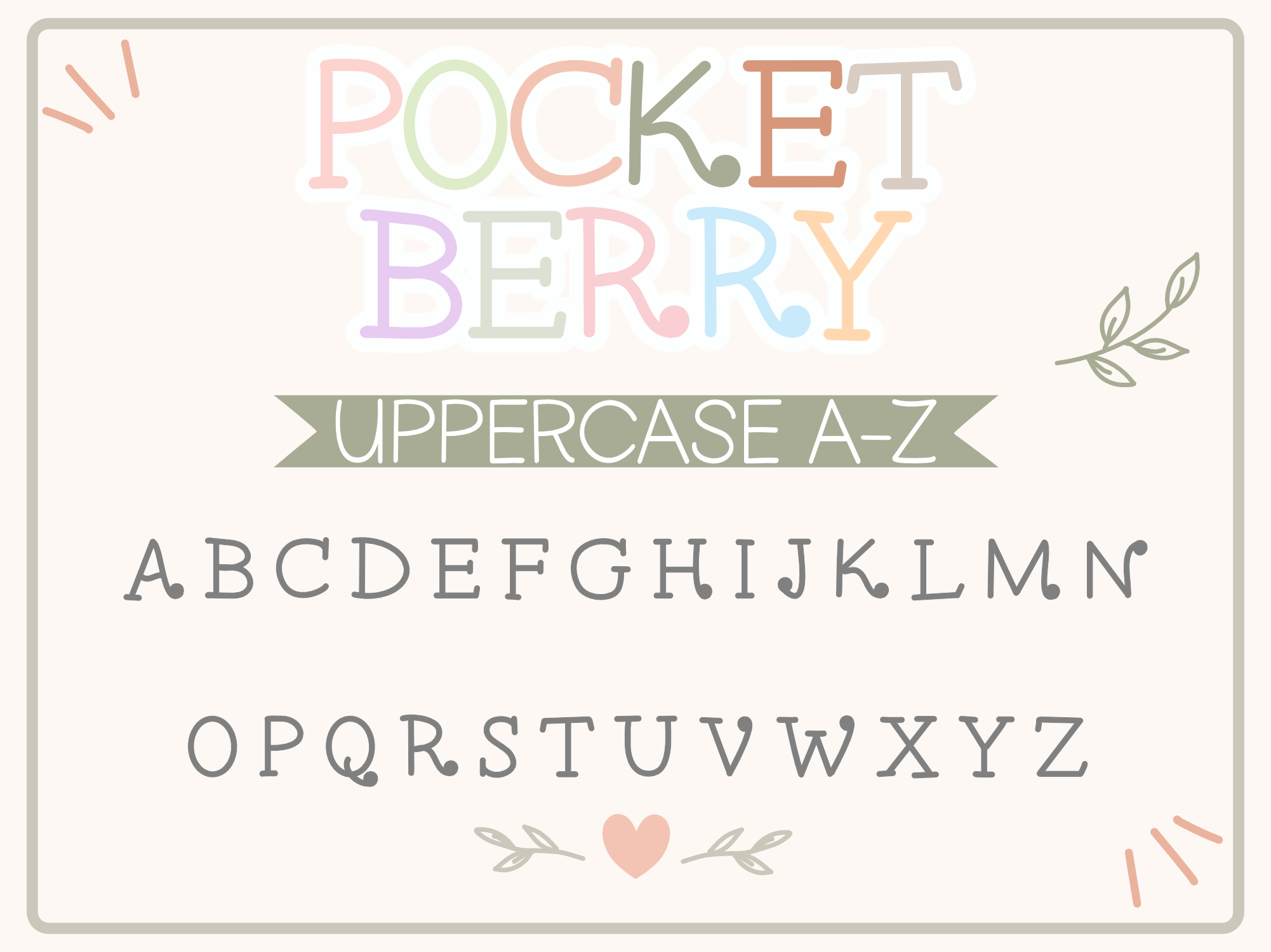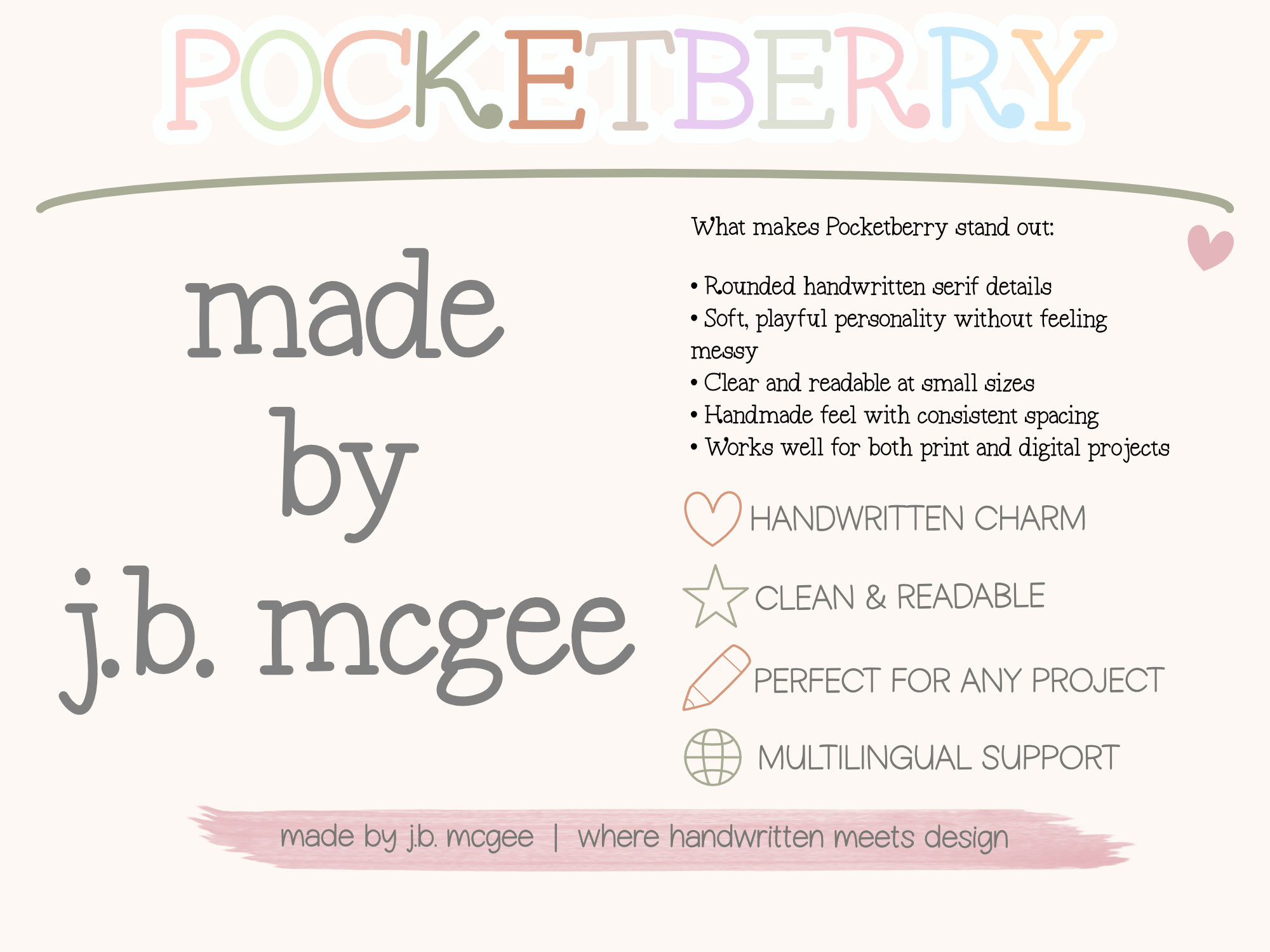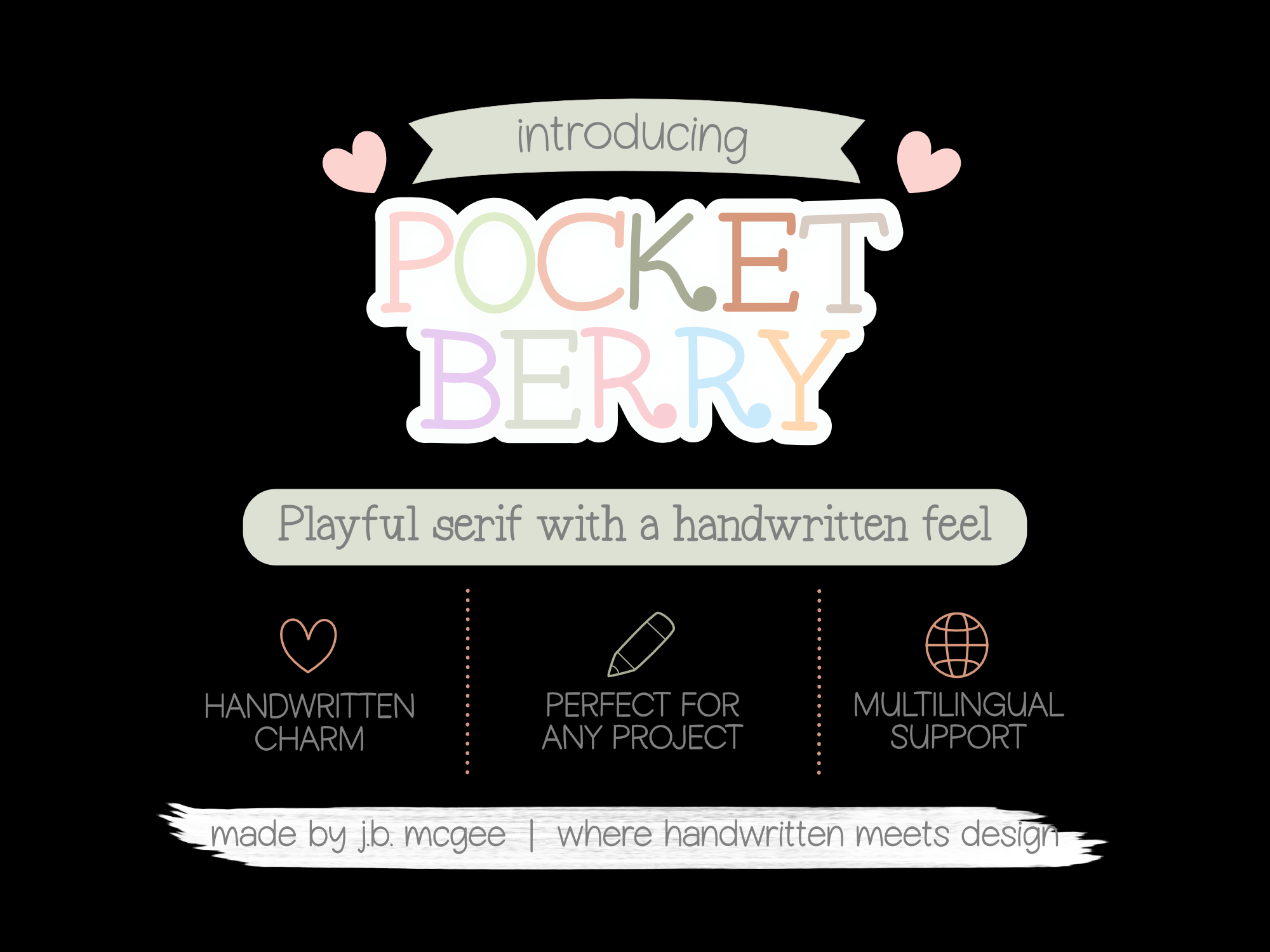
Pocketberry Font
Playful Handwritten Serif Font for Planners, Teachers & Branding
Pocketberry Note is a playful handwritten serif font with rounded details, soft curves, and a friendly handmade feel. It combines the readability of a serif with the warmth and personality of hand lettering, making it easy to use across both fun and functional projects.
The subtle imperfections and rounded terminals give this font a cozy, approachable style while still staying clean enough for everyday use. It works especially well for planners, classroom materials, branding, stickers, social graphics, and printable designs.
What makes Pocketberry Note stand out:
• Rounded handwritten serif details
• Soft, playful personality without feeling messy
• Clear and readable at small sizes
• Handmade feel with consistent spacing
• Works well for both print and digital projects
Perfect for:
• Planners and journal pages
• Teacher resources and worksheets
• Stickers and printable designs
• Branding and packaging
• Bookish and cozy aesthetics
• Social media graphics
• Small business projects